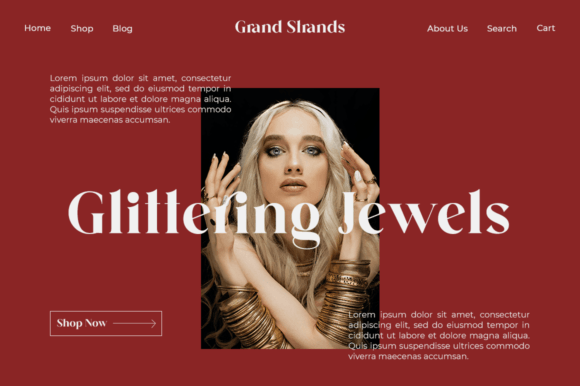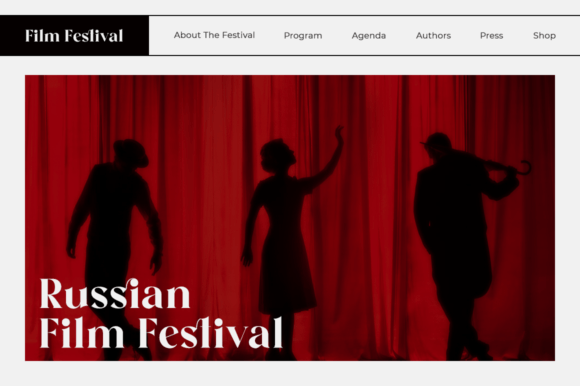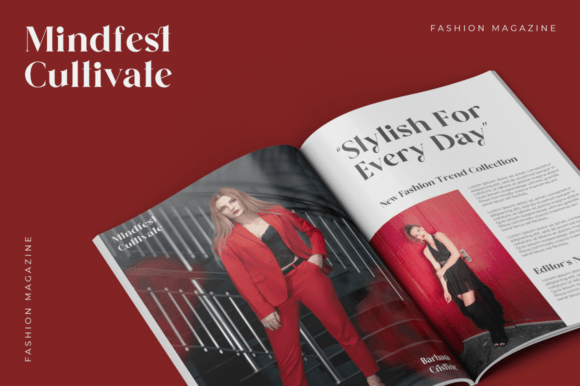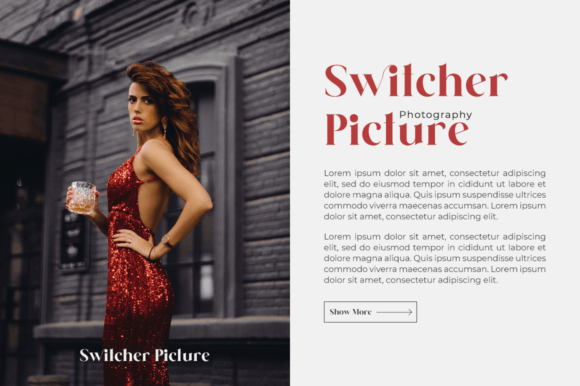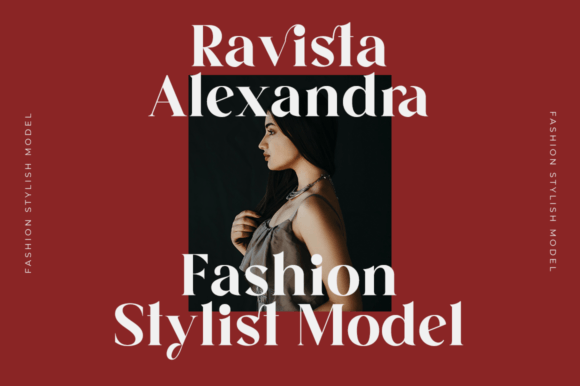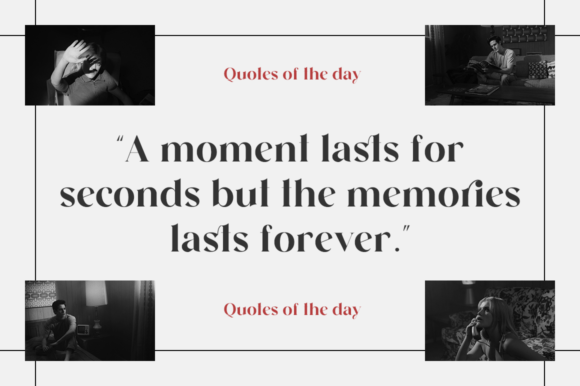
Introduction to Lavishette Font
Enter the Lavishette Font, a sleek and sophisticated serif font that’s perfect for a wide range of creative projects. With its thin lettering and clean style, this font is sure to elevate any design to the next level. Whether you’re working on a free download or a commercial project, the Lavishette Font is a valuable resource that’s sure to become your go-to choice.
Key Features of Lavishette Font
- High-quality design resource ideal for creative projects requiring a touch of elegance.
- Lavishette Font is a versatile design resource suitable for a wide range of applications, from branding and marketing materials to digital art and creative projects.
- Unique, hand-drawn style with intricate details and flourishes, setting it apart from other font designs.
Honest Review: Lavishette Font
I recently had the chance to work with the Lavishette Font for a creative project, and I must say it was a delightful experience. This high-quality font is a great design resource for anyone looking to add a touch of elegance to their work.
What works well: ✨ The Lavishette Font is available for a free download, making it easily accessible to designers of all levels. The transparent background feature allows for seamless integration into any design, and the font’s versatility makes it suitable for a wide range of creative projects. I particularly liked how the font’s ornate details added a level of sophistication to my design.
However, there are some limitations to consider: ⚠️ The font may not be suitable for projects that require a more minimalist aesthetic, as its ornate details can be overwhelming at times. Additionally, some users may find the font’s compatibility issues with certain software a nuisance.
Overall, I’m quite impressed with the Lavishette Font. Its high quality and versatility make it a valuable addition to any designer’s toolkit. If you’re looking for a design resource that can elevate your creative project, I would definitely recommend giving this font a try.
The Lavishette Font is ideal for a wide range of creative projects, including wedding invitations, social media graphics, and business cards. Its high-quality design and transparent background feature make it a versatile design resource that can be used in various contexts.
Q: Is the Lavishette Font a high-quality design resource?
Yes, the Lavishette Font is a high-quality design resource. It has been carefully designed to provide a unique and elegant look for your creative project. The font is available in a range of weights and styles, making it easy to use in a variety of design contexts